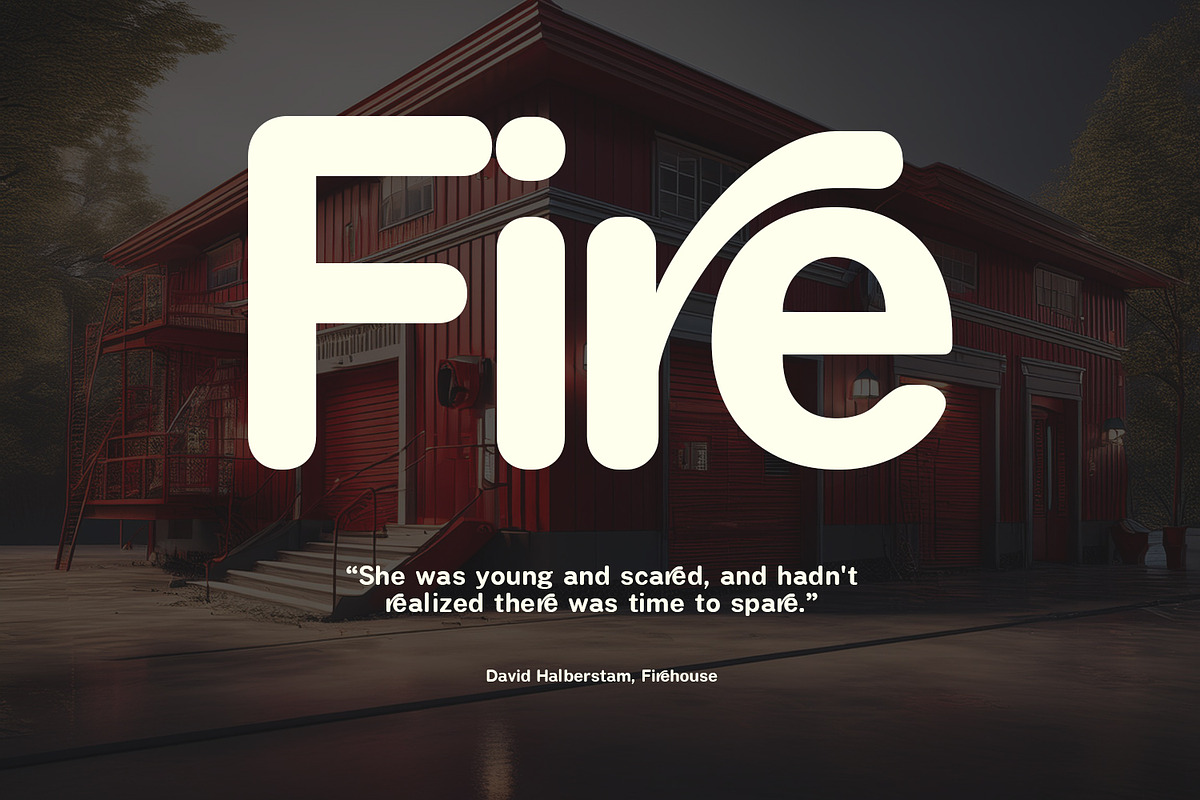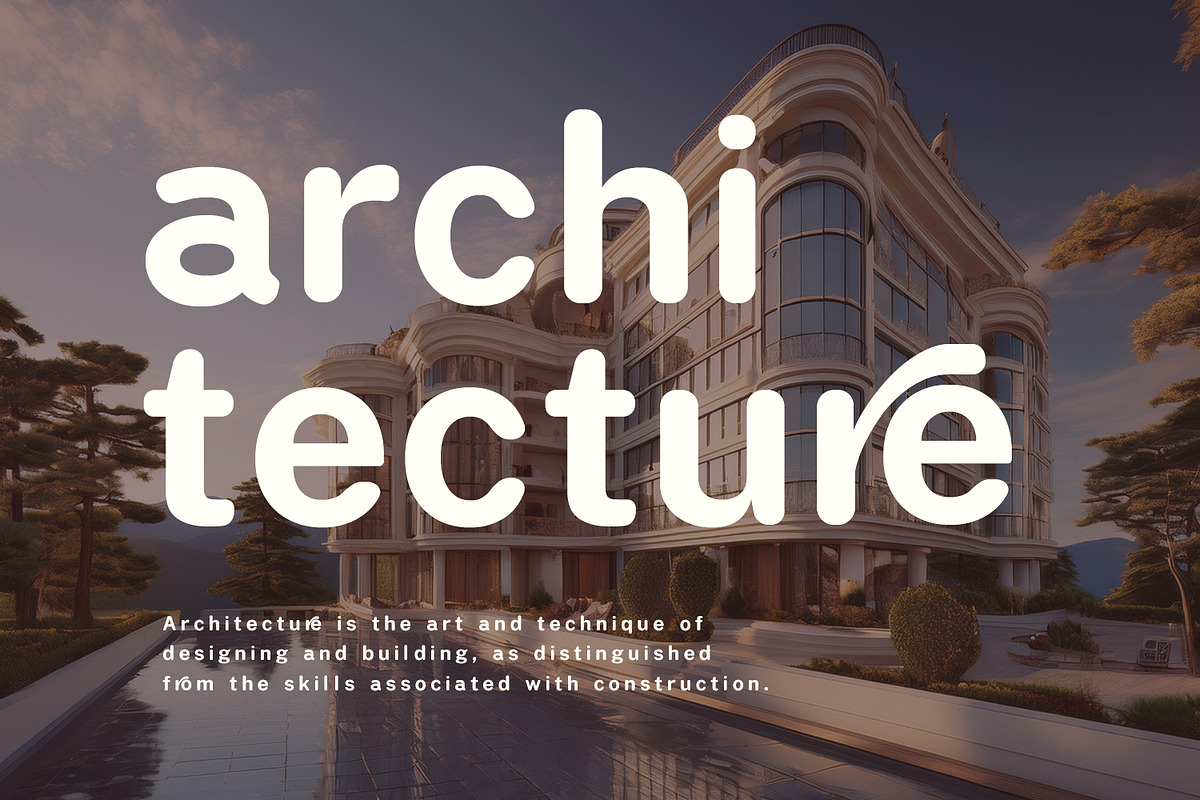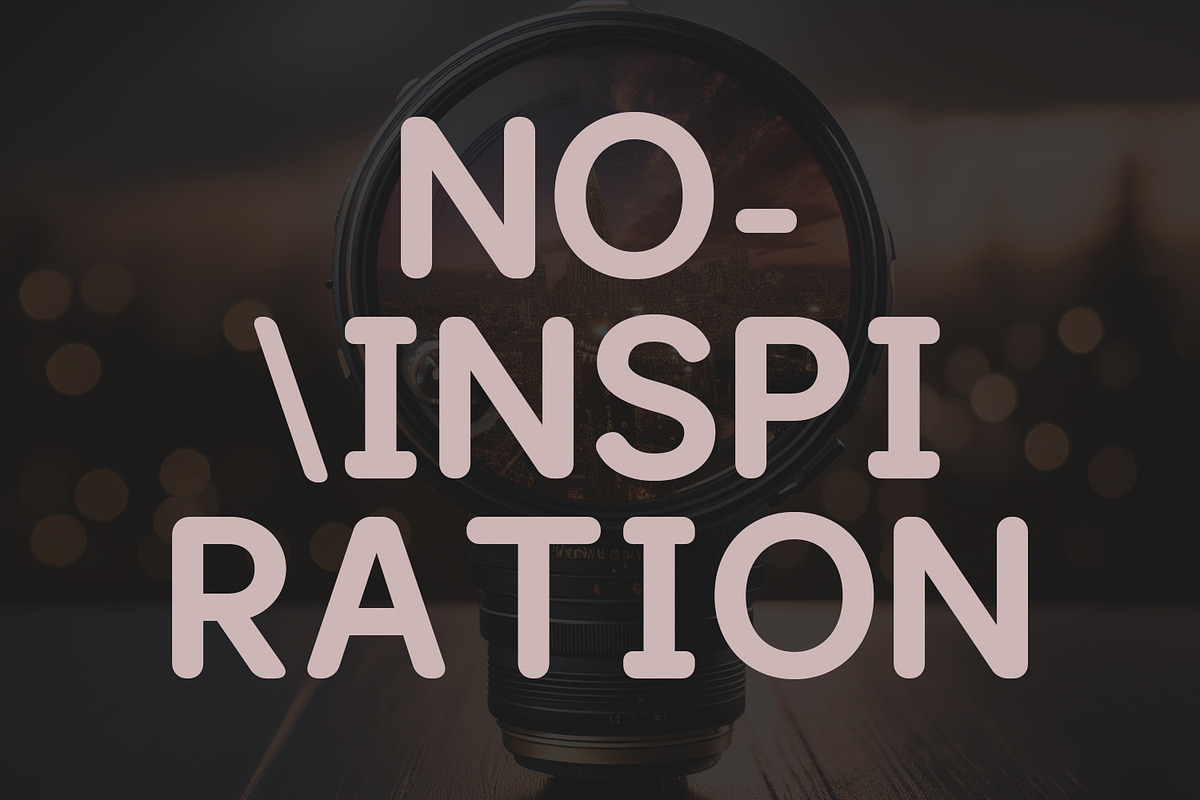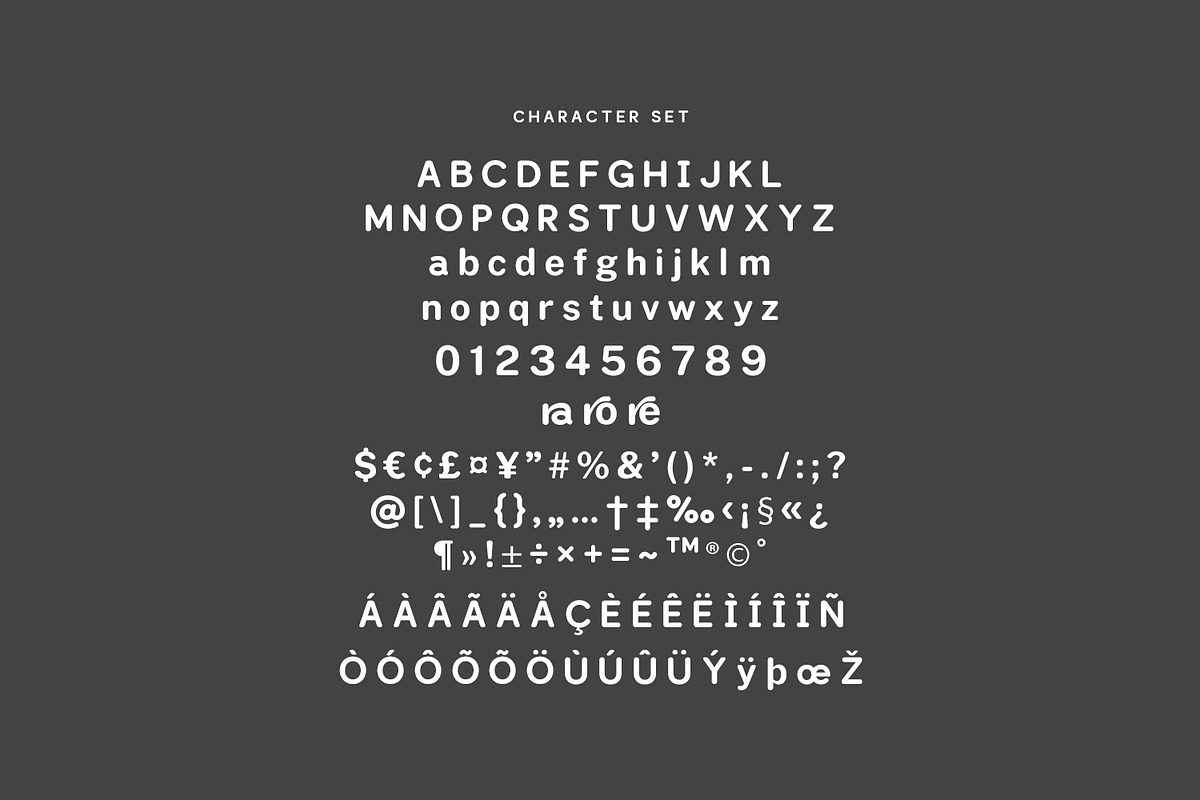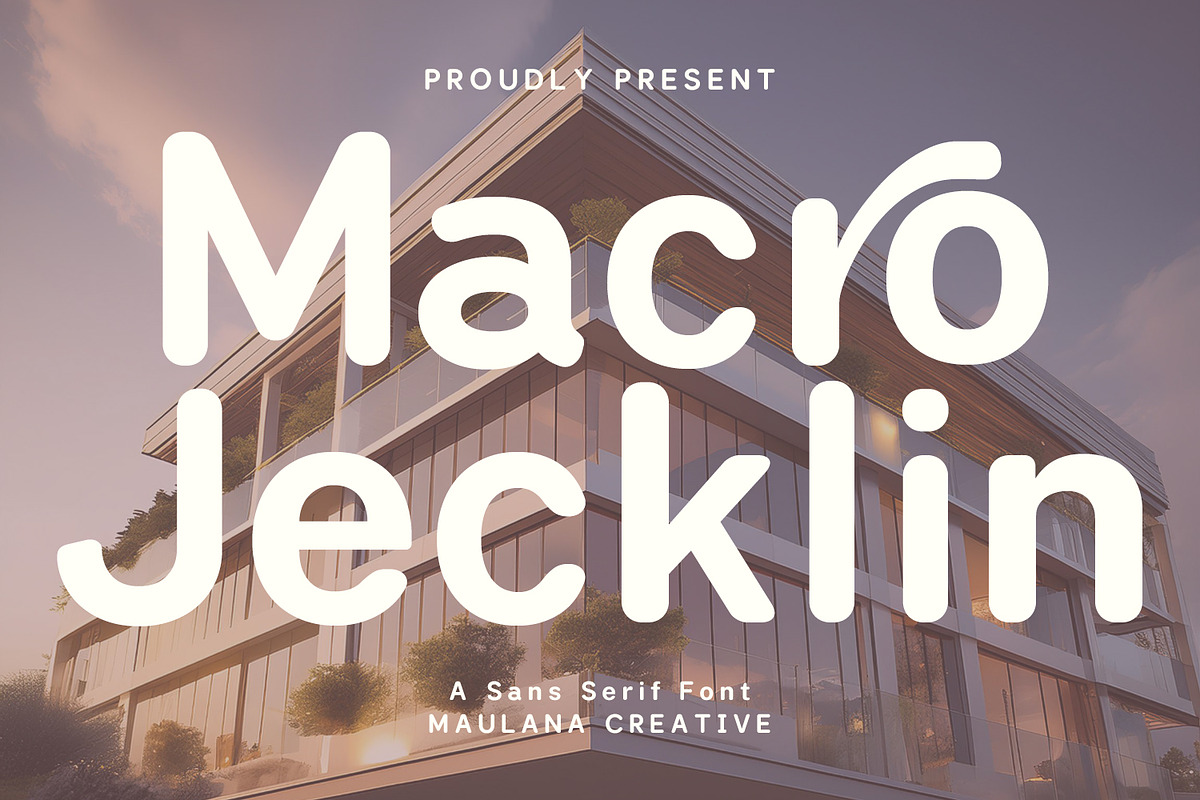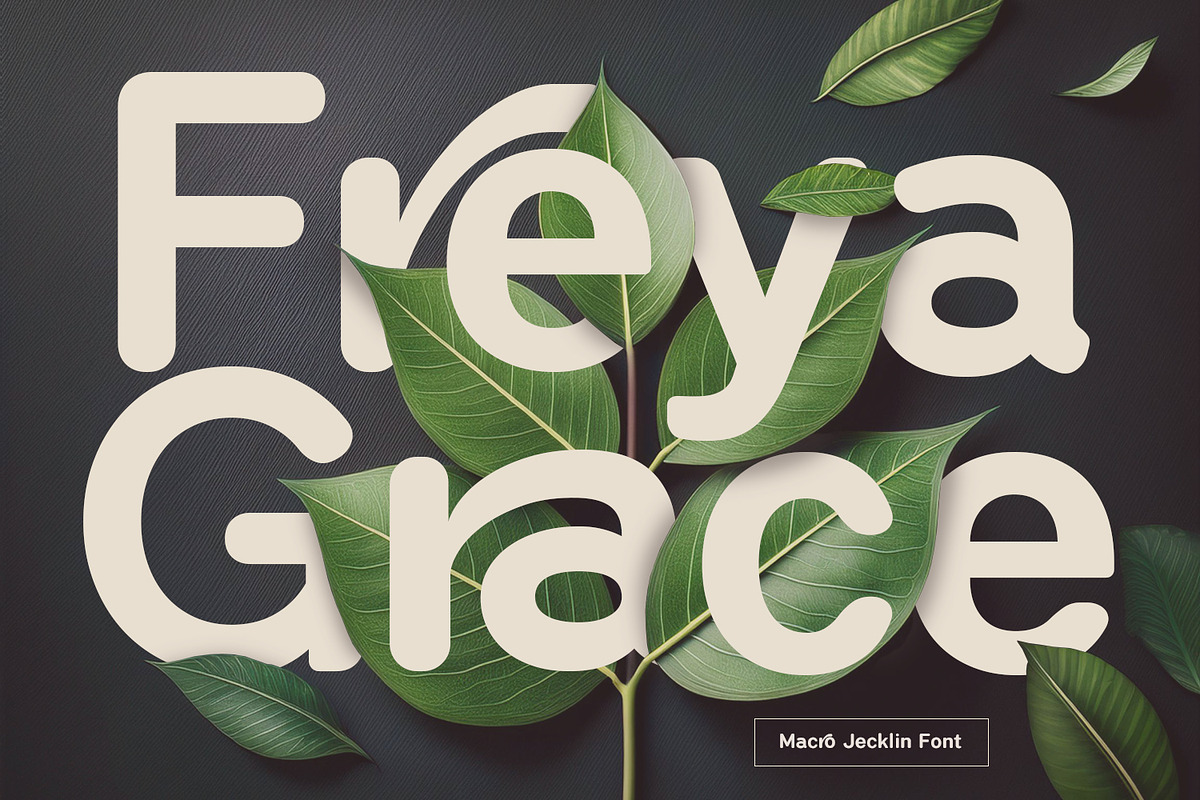
Macro Jecklin Rounded Sans Serif
Macro Jecklin is a modern sans serif font. With medium rounded stroke, fun character with a bit of ligature. To give you an extra creative work Macro Jecklin font support multilingual more than 100+ language. This font is good for logo design, Social media, Movie Titles, Books Titles, a short text even a long text letter and good for your secondary text font with sans or serif. Make a stunning work with Macro Jecklin font.